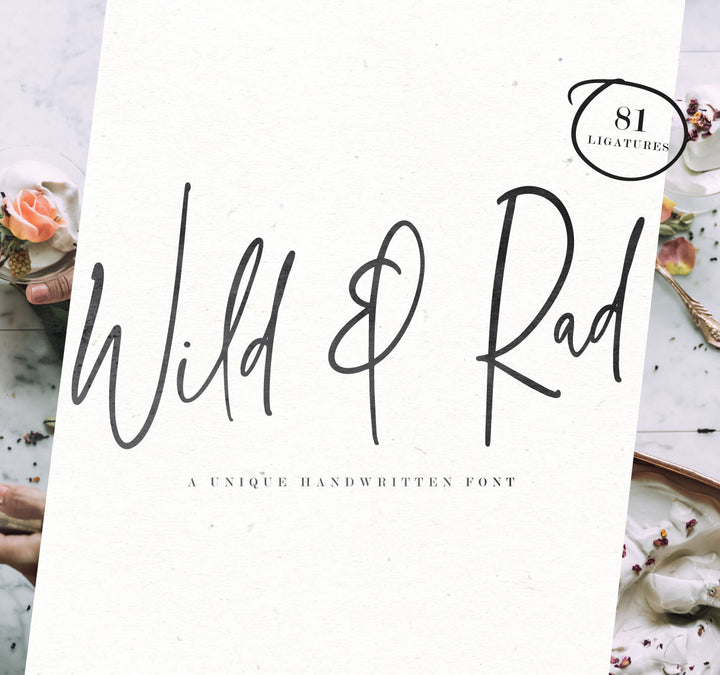
Now, here's a new font dedicated to all those who dare to be Wild & Rad! The newest addition to the Birdesign font stash.
Wild & Rad is a font inspired in a casual handwriting editorial style, specially created to engage with the spectator through natural and spontaneous script shapes, almost like if you could see the pen flowing through every trace.
The perfect choice for those who seek a font that goes out of the font boundaries, adding movement and a strong personality to every text. Suggested for logos, titles, as well as body texts and also when used along other fonts with strong and bold styles. It’s a staple font to fall in love with!